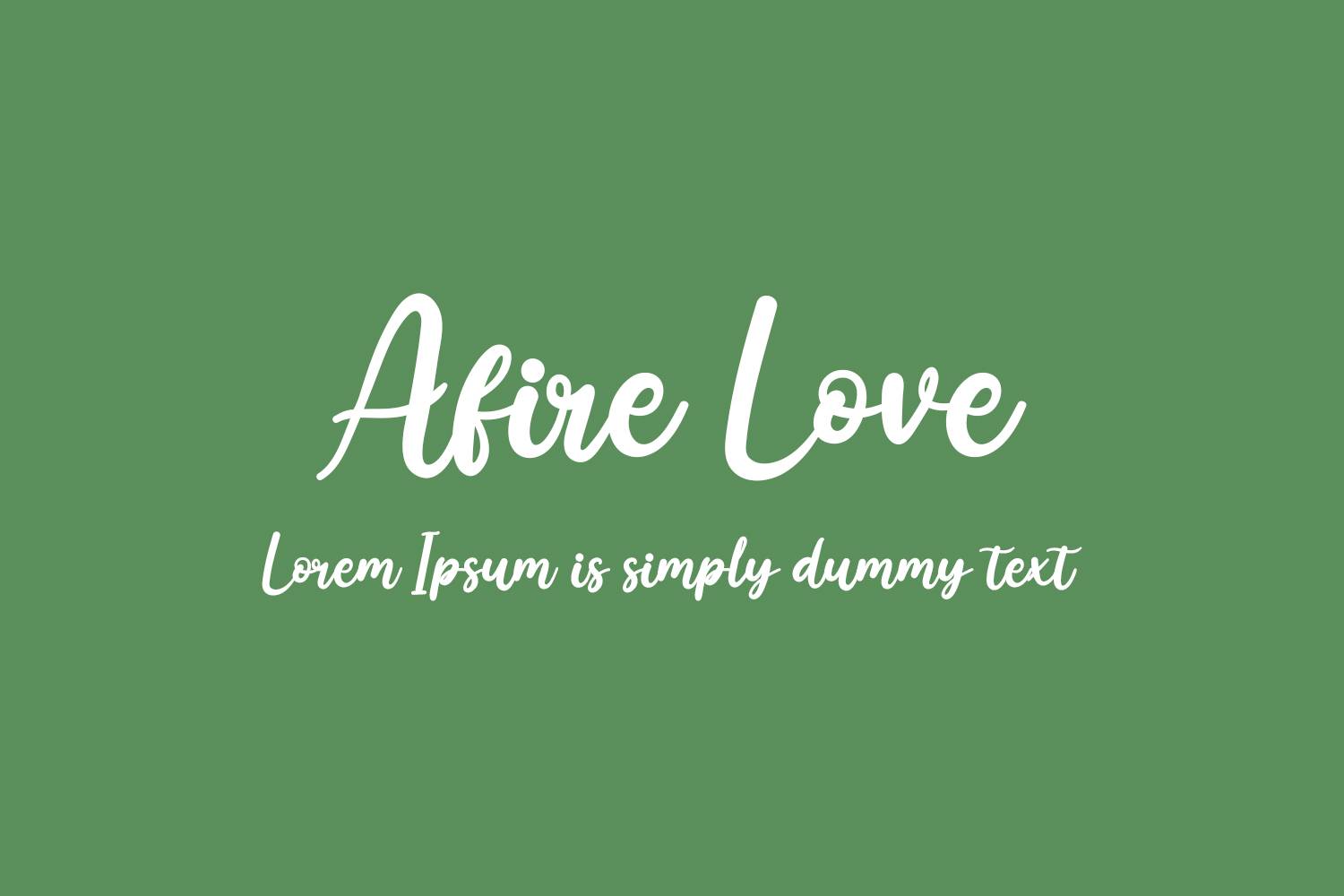
Afire Love is a playful and elegant script font featuring smooth, flowing strokes with a moderate contrast that mimics natural handwriting. Its rounded letterforms and connected cursive style make it ideal for feminine branding, invitations, and creative projects that want to evoke warmth and personality. This font works beautifully in headlines and logos where a friendly, stylish touch is desired.
Afire Love Font
About Afire Love Font